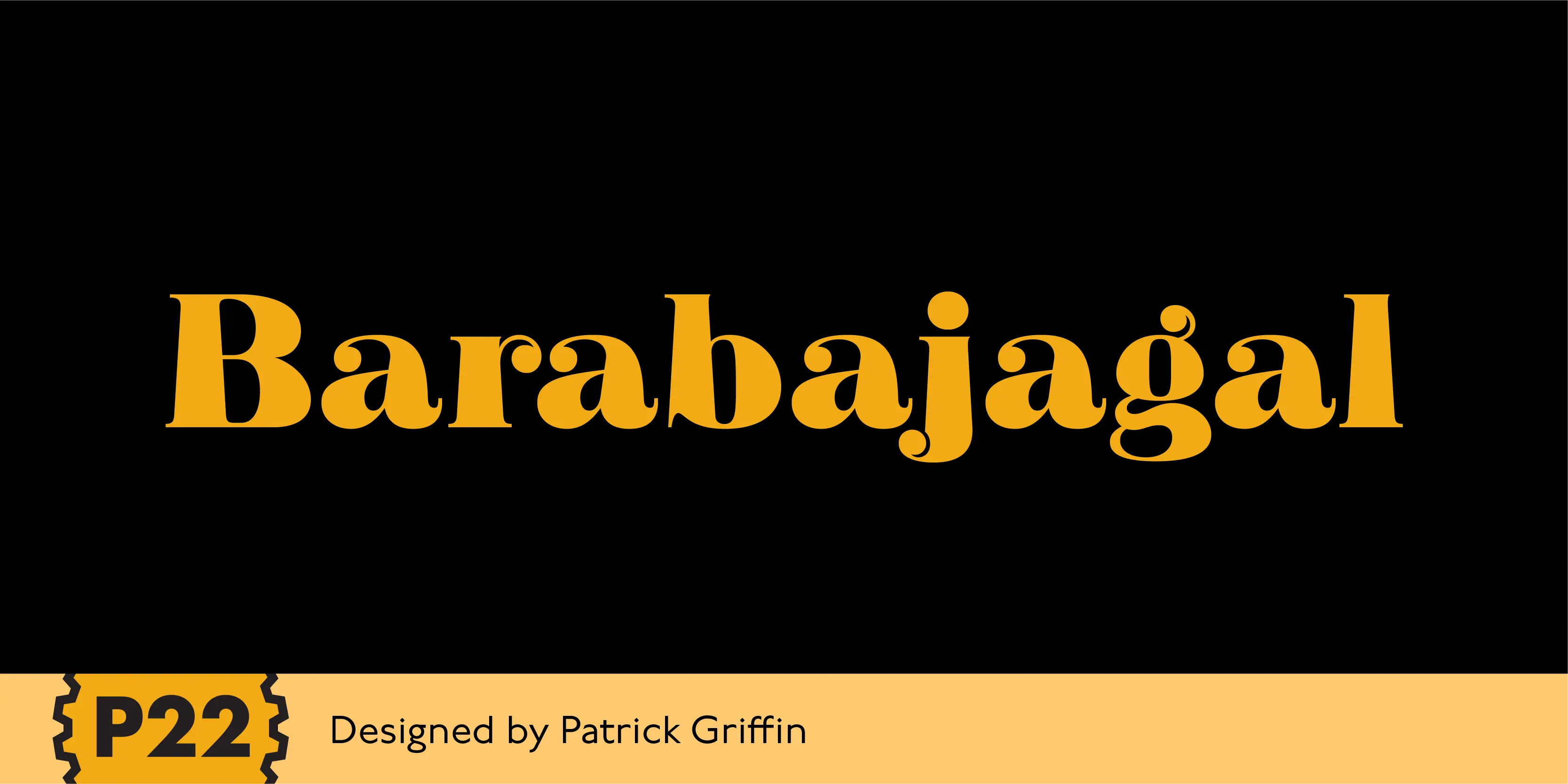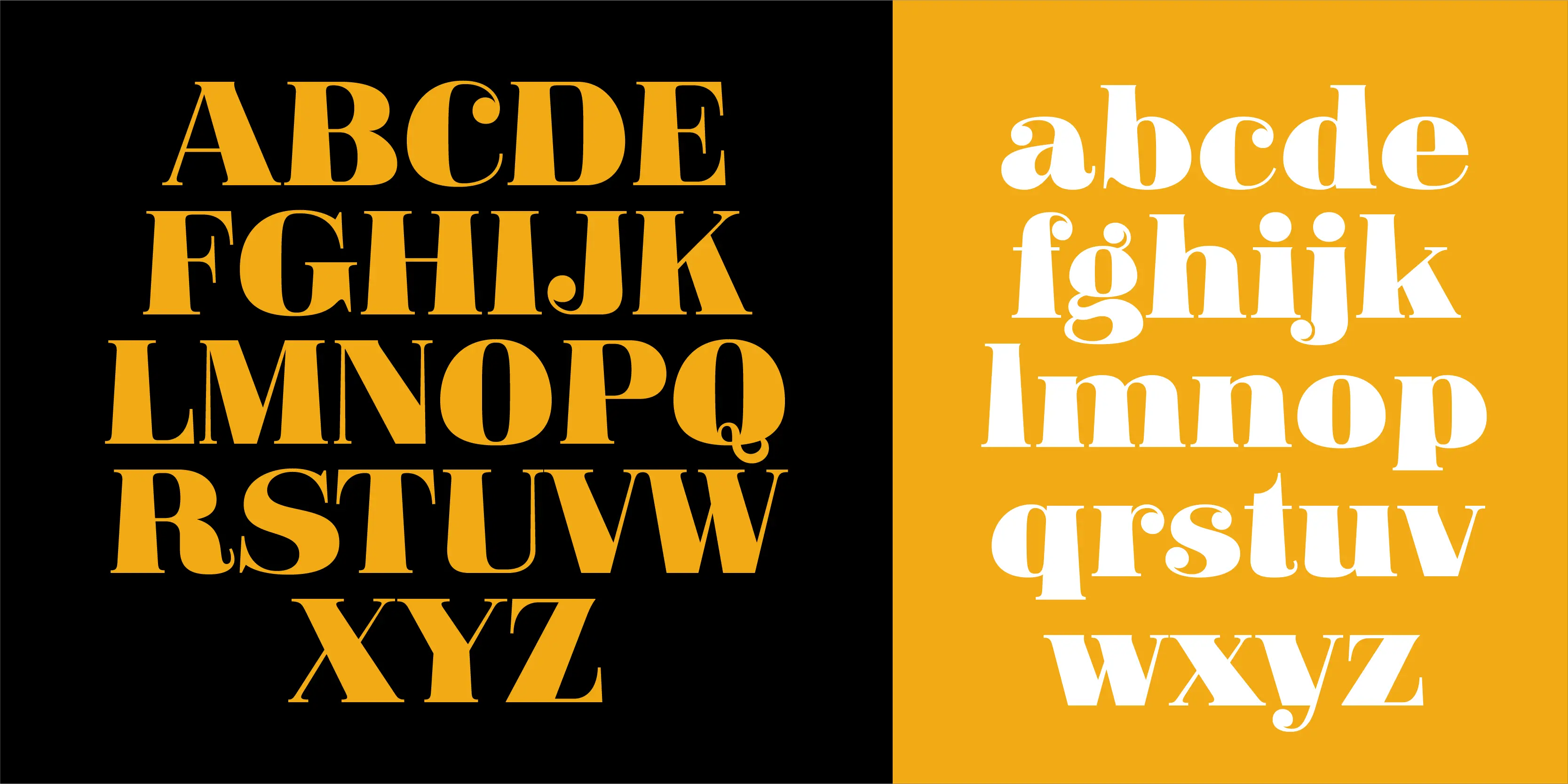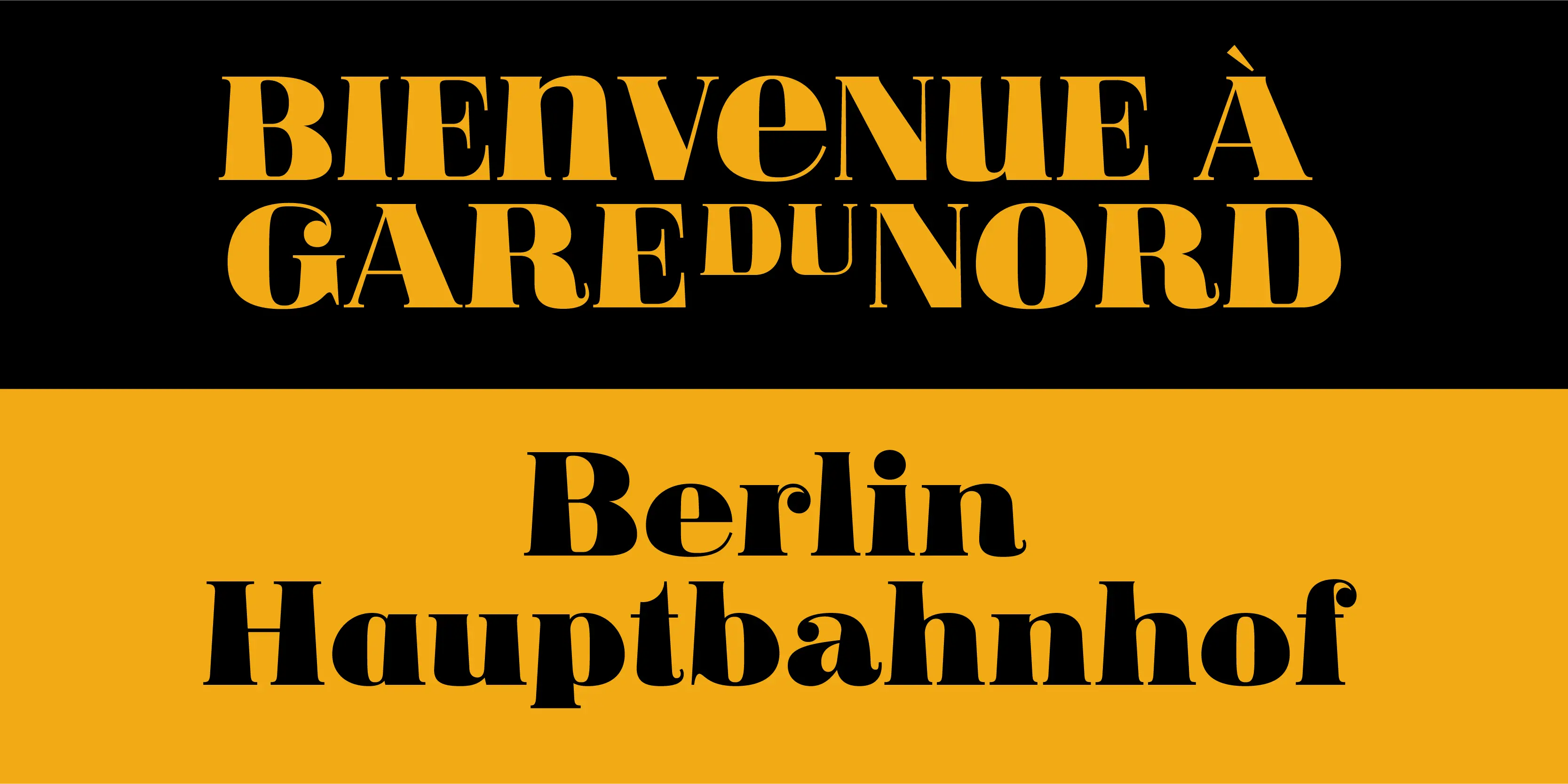
Barabajagal Font
Barabajagal
P22 Barabajagal is a unique take on the display fat face by way of doodling fun. Somewhat informed by the shapes of an early 1970s film type called Kap Antiqua Bold, this font’s aesthetic is the stuff of boundless energy and light humour, where an uncommon “peak” angle drawing perspective results in sturdy trunks, fat bottom curls, and active ascenders eager for mobility in space. This is the kind of font that makes you wonder whether it was drawn with rulers, protractors and compasses, or just by a mad doodler’s crazy-good free Script. Regardless, Barabajagal easily turns the geometry of modern forms into an exercise in sugar-loaded fun. It’s a very good tool to use in design geared at kids and young adults, such as food and toy packaging, books, animation, cartoons and games. Barabajagal comes with over 550 glyphs, lots of alternates, and a few ligatures and swash caps. It also contains extended support for Latin languages.
• Fractions
• Ordinal Numerals
• Subscript
• Superscript
• Swashes
Swashes
Stylistic Set 1
Stylistic Set 2
Fractions
Ordinals
Scientific Inferiors
Superscript
Subscript
Numerators
Denominators